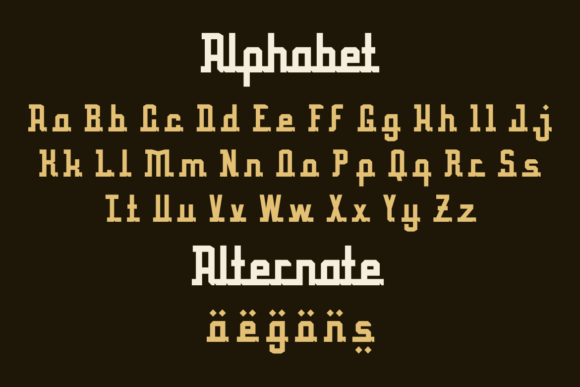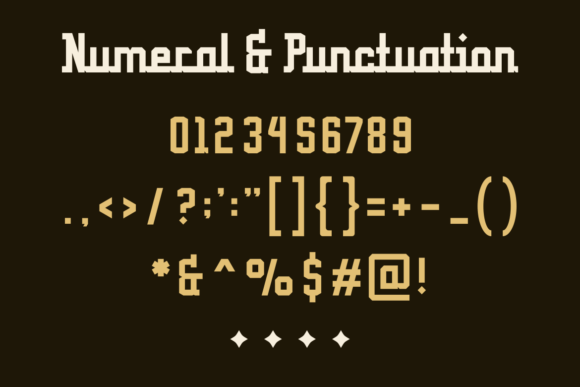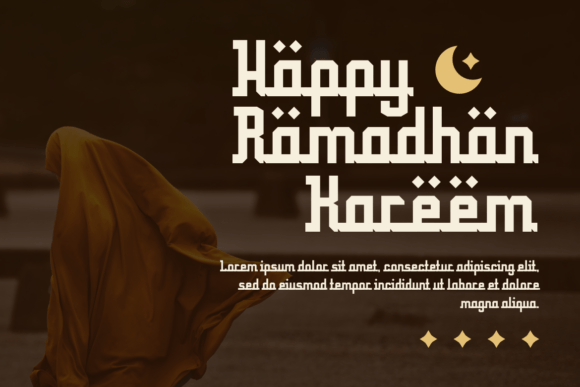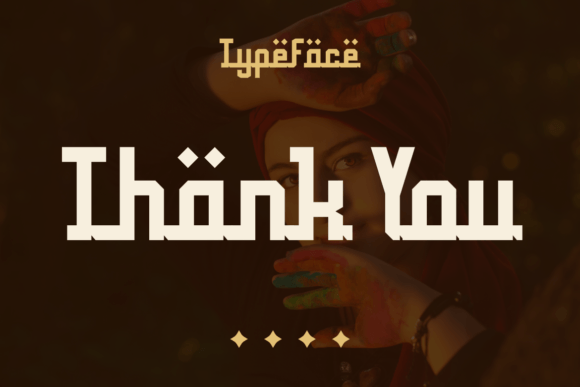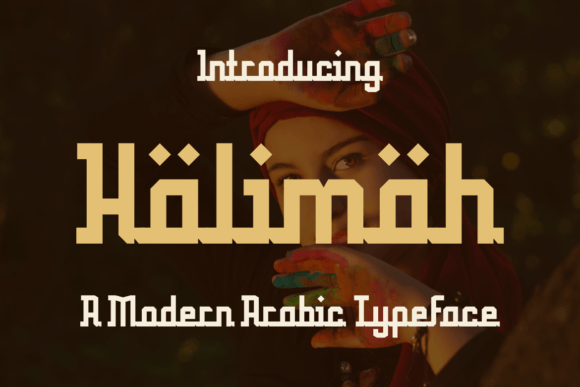
Introducing Halimah Font: A Bold and Authentic Display Font for Your Branding Needs
In the world of typography, a font can make or break a brand’s identity. A well-designed font can elevate a brand’s visual appeal, convey its message, and leave a lasting impression on its audience. If you’re a designer, craftsperson, or entrepreneur looking for a font that can help you create stunning branding materials, look no further than Halimah Font. In this article, we’ll explore the features, benefits, and uses of Halimah Font, and why it’s an excellent choice for your next branding project.
What is Halimah Font?
Halimah Font is a bold and authentic display font designed to make a statement. Its unique and eye-catching design makes it perfect for branding projects that require a strong visual presence. The font is versatile and can be used for a wide range of applications, from logos and t-shirt printing to product design and more.
Key Features of Halimah Font
- Bold and Authentic Design: Halimah Font boasts a bold and authentic design that grabs attention and makes a lasting impression.
- Versatility: The font is suitable for various branding projects, including logos, t-shirt printing, product design, and more.
- Wide Range of Contexts: Halimah Font is outstanding in a wide range of contexts, making it an excellent choice for designers and craftspersons who work on diverse projects.
Benefits of Using Halimah Font
So, why choose Halimah Font for your branding project? Here are some benefits of using this amazing font:
- Stand Out from the Crowd: With Halimah Font, you can create unique and eye-catching branding materials that set you apart from your competitors.
- Professional Look and Feel: The font’s bold and authentic design gives your branding materials a professional look and feel, helping you establish credibility and trust with your audience.
- Easy to Read and Understand: Despite its bold design, Halimah Font is easy to read and understand, making it perfect for use in various contexts, from signage to digital media.
Use Cases for Halimah Font
Halimah Font is an incredibly versatile font that can be used in various branding projects. Here are some use cases to get you started:
- Logo Design: Create a stunning logo for your brand using Halimah Font. Its bold design makes it perfect for use in logos that need to make a statement.
- T-Shirt Printing: Design eye-catching t-shirts using Halimah Font. The font’s bold design ensures that your message stands out on any type of apparel.
- Product Design: Use Halimah Font to create stunning product designs that showcase your brand’s personality and style.
- Signage and Advertising: The font’s bold design makes it perfect for use in signage and advertising materials, such as billboards, posters, and flyers.
Tips for Using Halimah Font Effectively
To get the most out of Halimah Font, here are some tips to keep in mind:
- Use it Boldly: Halimah Font is designed to make a statement, so don’t be afraid to use it boldly. Experiment with different sizes and colors to create a lasting impression.
- Pair it with Other Fonts: Halimah Font pairs well with other fonts, so feel free to experiment with different font combinations to create a unique look.
- Consider Your Audience: When using Halimah Font, consider your target audience and the context in which you’ll be using the font. This will help you choose the right size, color, and style to ensure your message resonates with your audience.
In conclusion, Halimah Font is an excellent choice for designers, craftspersons, and entrepreneurs looking for a bold and authentic display font for their branding needs. Its versatility, wide range of contexts, and ease of use make it perfect for various branding projects, from logos and t-shirt printing to product design and more. By following the tips outlined in this article, you can use Halimah Font effectively to create stunning branding materials that make a lasting impression on your audience.